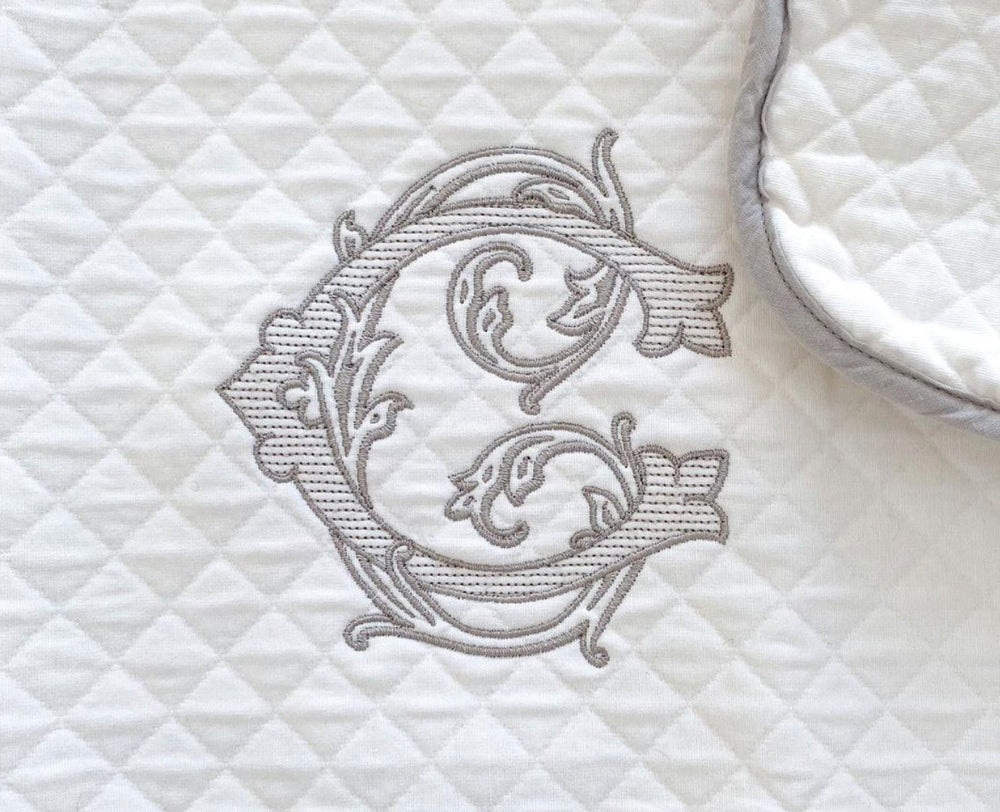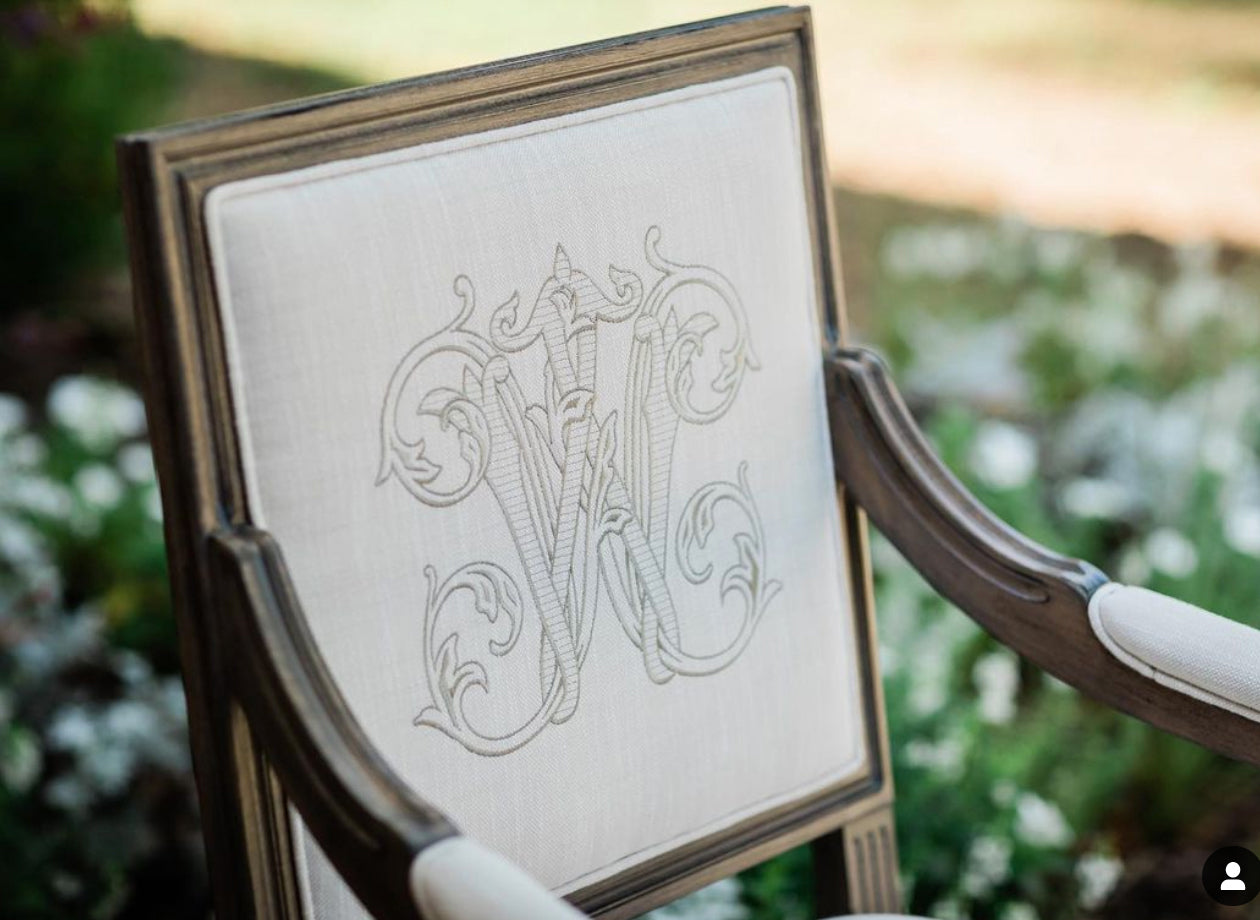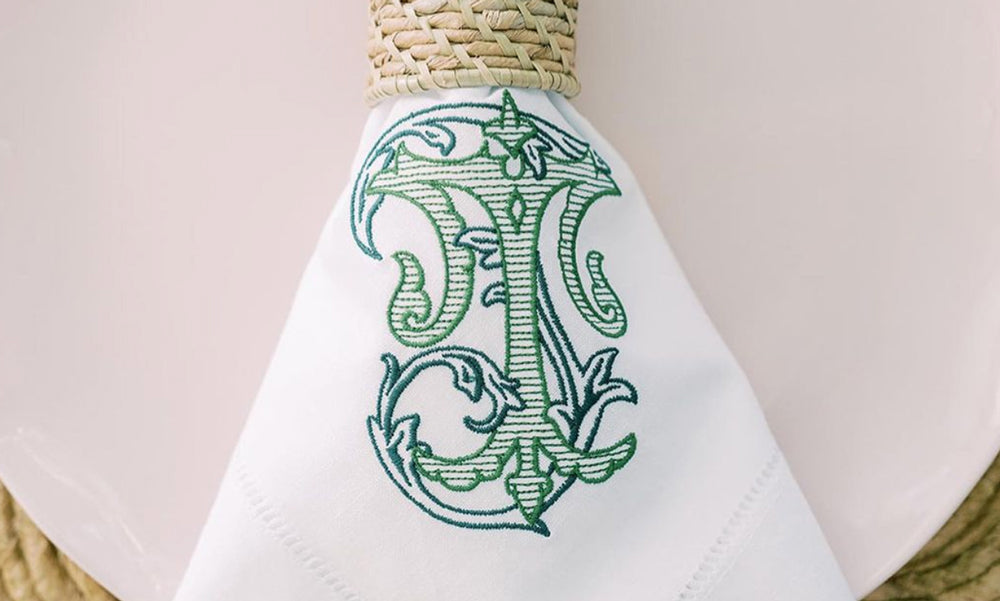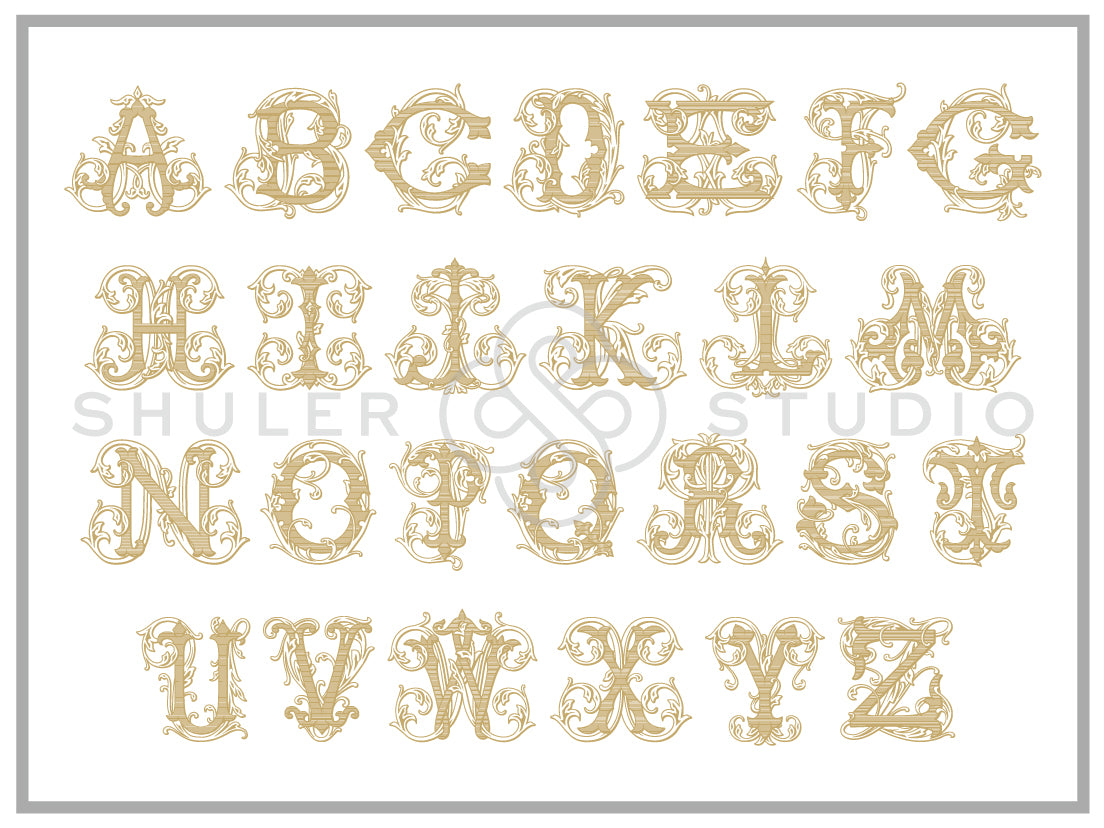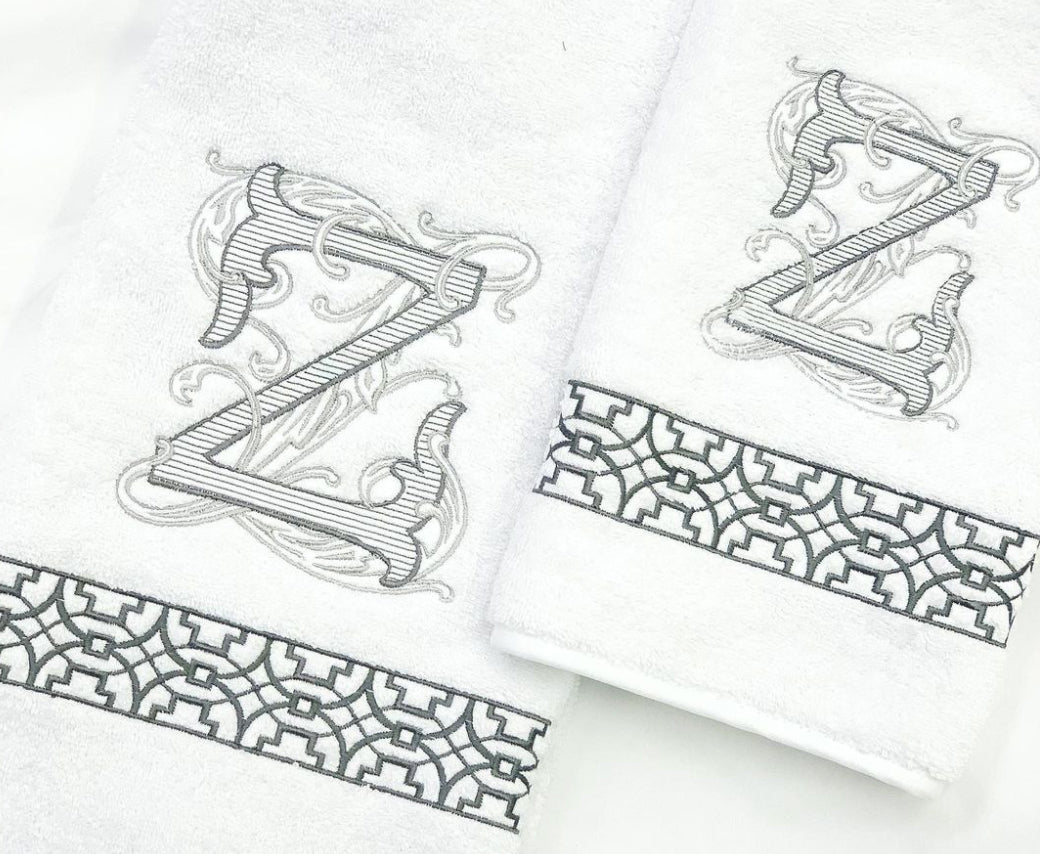
Vintage Vine Font for Embroidery
Our Vintage Vine Font is an amazing collection of 26 single vintage letters woven with each letter’s vine counterpart.
Perfect for embroidery, the careful attention in the digitization of each design makes personalization unique and beautiful!